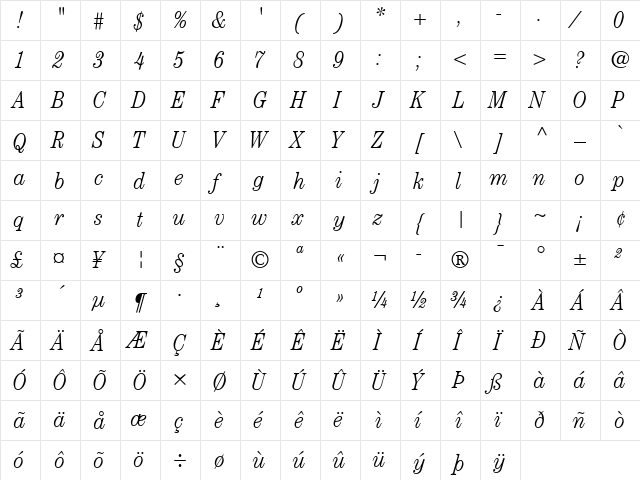
ITCCentury LT LightCond Italic Font Preview
Design Context for ITCCentury LT LightCond Typeface
ITCCentury LT LightCond offers clean, dependable letterforms without strong stylistic allegiance, making it a practical choice for designers who need flexibility. The dynamic lean of this cut emphasises speed and emphasis in any layout. Its slender proportions lend an understated elegance to any composition. The condensed width makes it efficient for tight spaces without sacrificing legibility.
Pro Tip: Use ITCCentury LT LightCond for emphasis, pull quotes, and subheadings where its slanted energy can add rhythm to the layout.